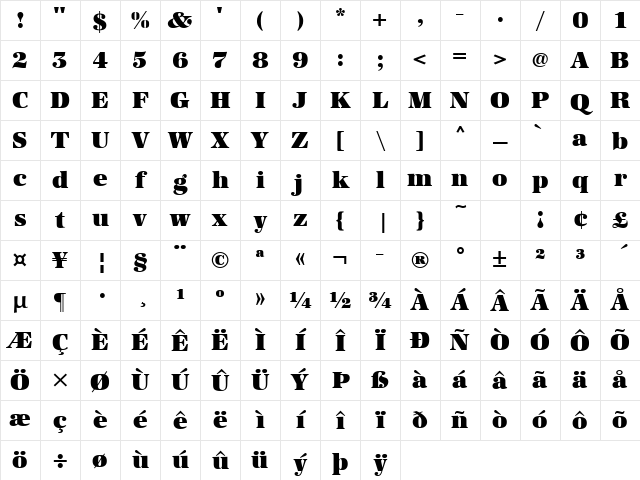
URWAntiquaAltTSup Regular
Design Context for URWAntiquaAltTSup
URWAntiquaAltTSup is a composed and adaptable typeface that performs quietly and consistently across a wide range of design contexts.
Pro Tip: Use URWAntiquaAltTSup in both headline and body roles to test its range before committing to a single application.